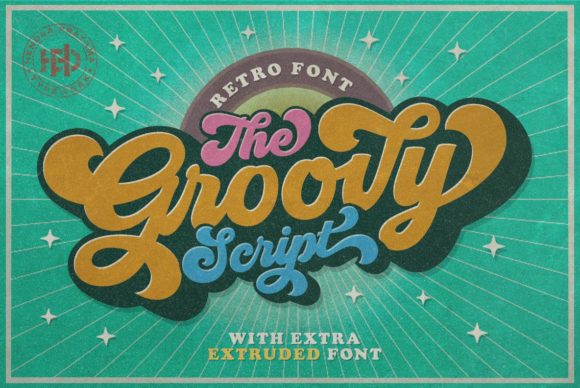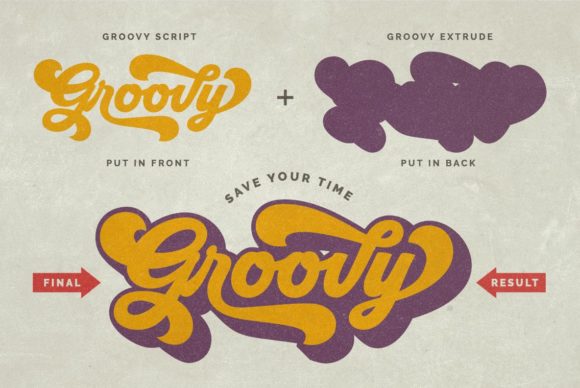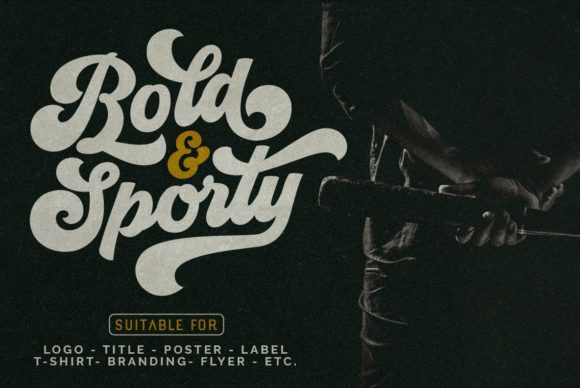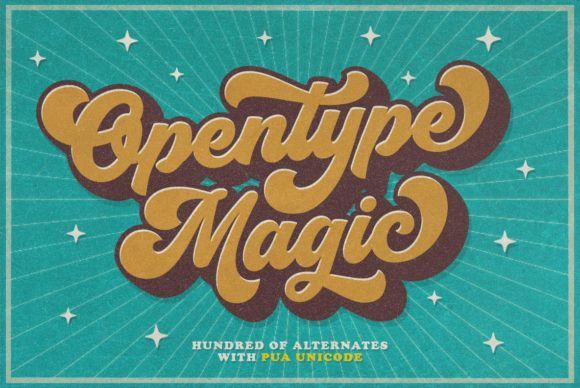
Groovy Font
About the Groovy Font
Explore the possibilities with Groovy Font, a font that offers both beauty and functionality. Groovy is inspired by the iconic advertisements of the late 60’s and 70’s. Get funky with this gorgeous and nostalgic script, and take any retro design to the next level.
Groovy’s bold, swashy forms are ideal for headlines, logos, and short, impactful text within posters or packaging designs. Its retro charm works exceptionally well for brands aiming for a vintage or psychedelic aesthetic. Avoid using Groovy for body text or UI elements; its highly decorative nature hinders readability in large blocks of text.
Pairing Groovy with a clean sans-serif like Helvetica or a geometric sans-serif such as Futura provides a strong contrast, grounding the script’s playful energy. For a warmer feel, consider pairing it with a classic serif font like Garamond or a more modern serif like Lora. These pairings offer visual balance and enhance readability.
The font projects a fun, energetic, and slightly rebellious personality, perfectly suited to projects related to music, fashion, entertainment, or food brands seeking a retro vibe.